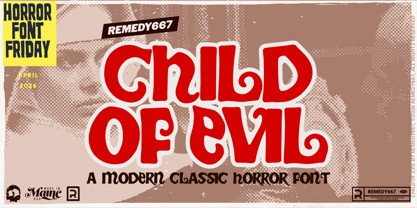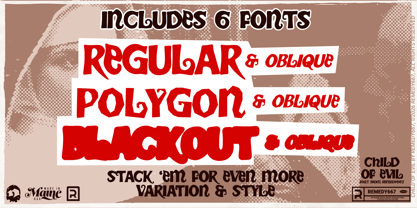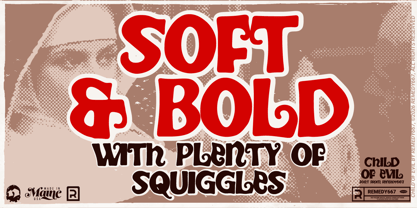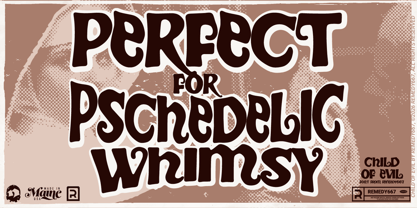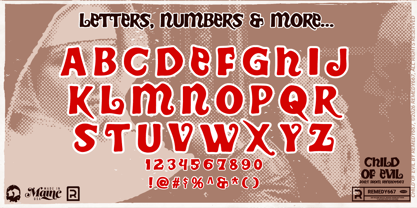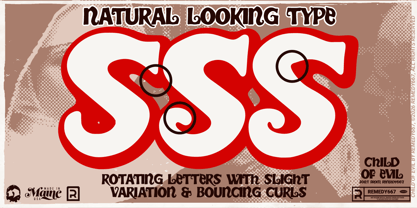
Child of Evil 667
by Remedy667
The Child of Evil 667 Font Family was designed by Nick Polifroni and published by Remedy667. Child of Evil 667 contains 6 styles and family package options. More about this family
Sugar, spice… and something not quite right! Child of Evil may look sweet, but don’t be fooled. Child of Evil is a sinister typeface inspired by the dark allure of the lettering from To the Devil… a Daughter. Beneath its polished surface lurks an evil edge, blending classic horror roots with modern titling sensibilities.
Perfect for projects that walk the line between elegance and evil, Child of Evil delivers a refined yet unsettling tone. Subtle variations keep your text feeling alive… never stale, never safe. Conjuring some sleek horror branding or modern occult aesthetics? Child of Evil proves that even the prettiest things can hide something wicked.
Features
• Classic horror-inspired forms with a modern titling feel
• Rotating characters for natural, organic text flow
• Clean yet eerie style suited for a wide range of projects
• Multilingual support for global dark design